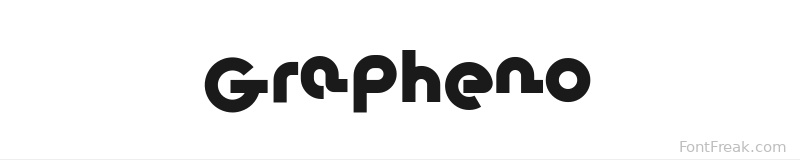
Grapheno
About Grapheno
Grapheno is a striking typeface designed by Galdino Otten Fonts, classified as a sans-serif font. Released in 2022, this font is characterized by its bold and modern aesthetic, featuring clean lines and a geometric structure that exudes a sense of contemporary style. The stroke weight is consistently thick, providing excellent visibility and impact, while the contrast remains minimal, ensuring a cohesive visual experience. The spacing between characters is well-balanced, making it suitable for both headlines and body text, and the overall design incorporates subtle decorative elements that enhance its uniqueness without overwhelming the viewer.
The versatility of Grapheno makes it an ideal choice for a variety of applications. It shines in contexts such as wedding invitations, where its modern feel can convey elegance while maintaining readability. It is also well-suited for movie posters, where its boldness can capture attention and communicate a strong thematic presence. Further, Grapheno can enhance restaurant menus, giving a contemporary flair that appeals to a trendy audience. Additionally, it serves graphic designers and content creators looking for a fresh, impactful font that can elevate their projects.
The target audience for Grapheno includes graphic designers, small business owners, and anyone seeking a modern typeface that stands out in a crowded marketplace. Its freeware license allows for easy access and use, making it a practical choice for those working on a budget.
What truly sets Grapheno apart is its ability to merge simplicity with bold expression, creating a font that is both functional and stylish. The Grapheno font free download option enables users to incorporate this dynamic typeface into their work effortlessly, making it a valuable addition to any designer's toolkit.